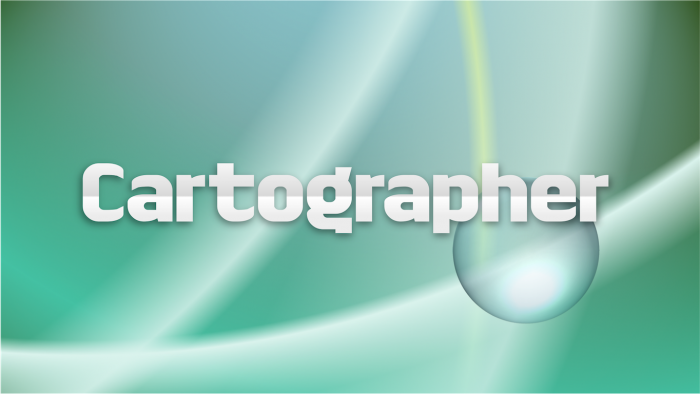
Yes, I was inspired by the trending video by Undefined.
Nice one!
retro!
Congrats on the TP!
cool
The "0" looks like "θ".
The "a" of "@" looks like a "q".
why the 0 looks as the greek theta letter??? .-.